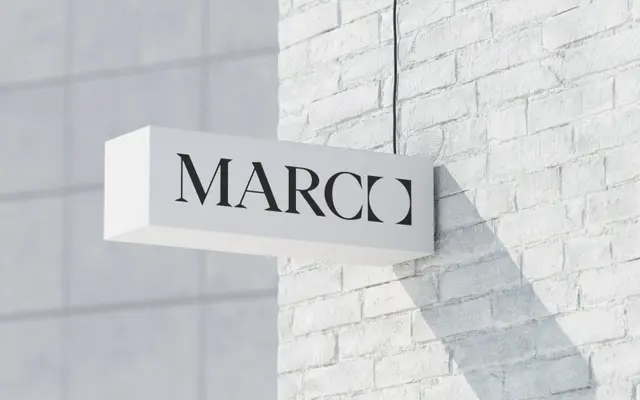
Eiko
A high-contrast serif by Caio Kondo that draws on Japanese Mincho forms and is named in honour of art director Eiko Ishioka, with Latin and kana coverage across 16 styles.
Designed by Caio Kondo, it pairs sharp hairline strokes with strong verticals drawn from Mincho tradition, while the Latin forms sit comfortably in editorial and luxury branding contexts. The family covers hiragana, katakana and 81 educational kanji, making it one of the few commercial serifs designed to pair with existing kanji fonts rather than replace them. Features include vertical writing support, old-style figures, stylistic alternates, ligatures and a full italic suite added in version 2.00.
A high-contrast serif with Mincho-influenced structure, combining sharp hairline strokes with strong verticals in a manner consistent with Japanese Mincho traditions filtered through a contemporary editorial lens.